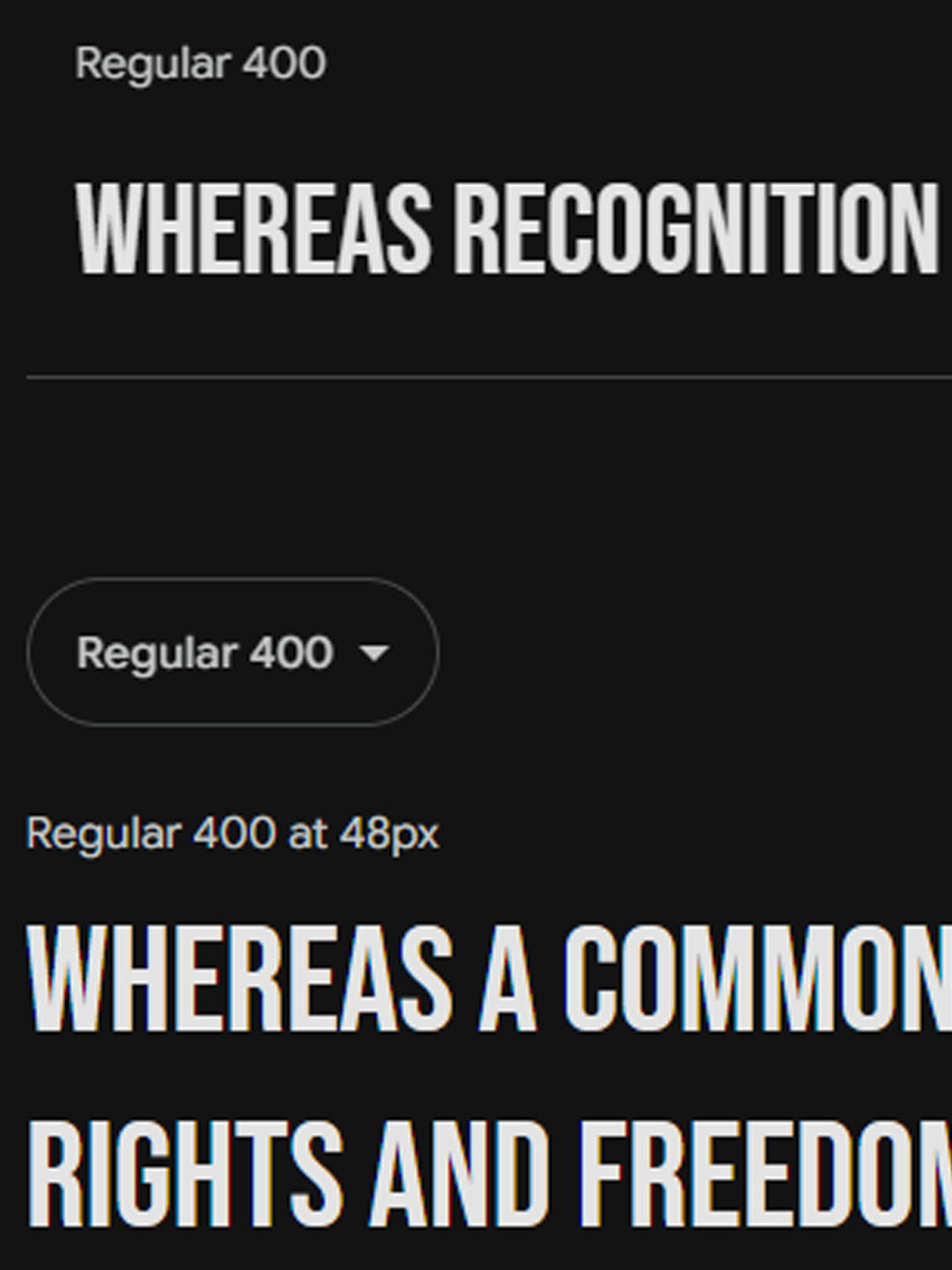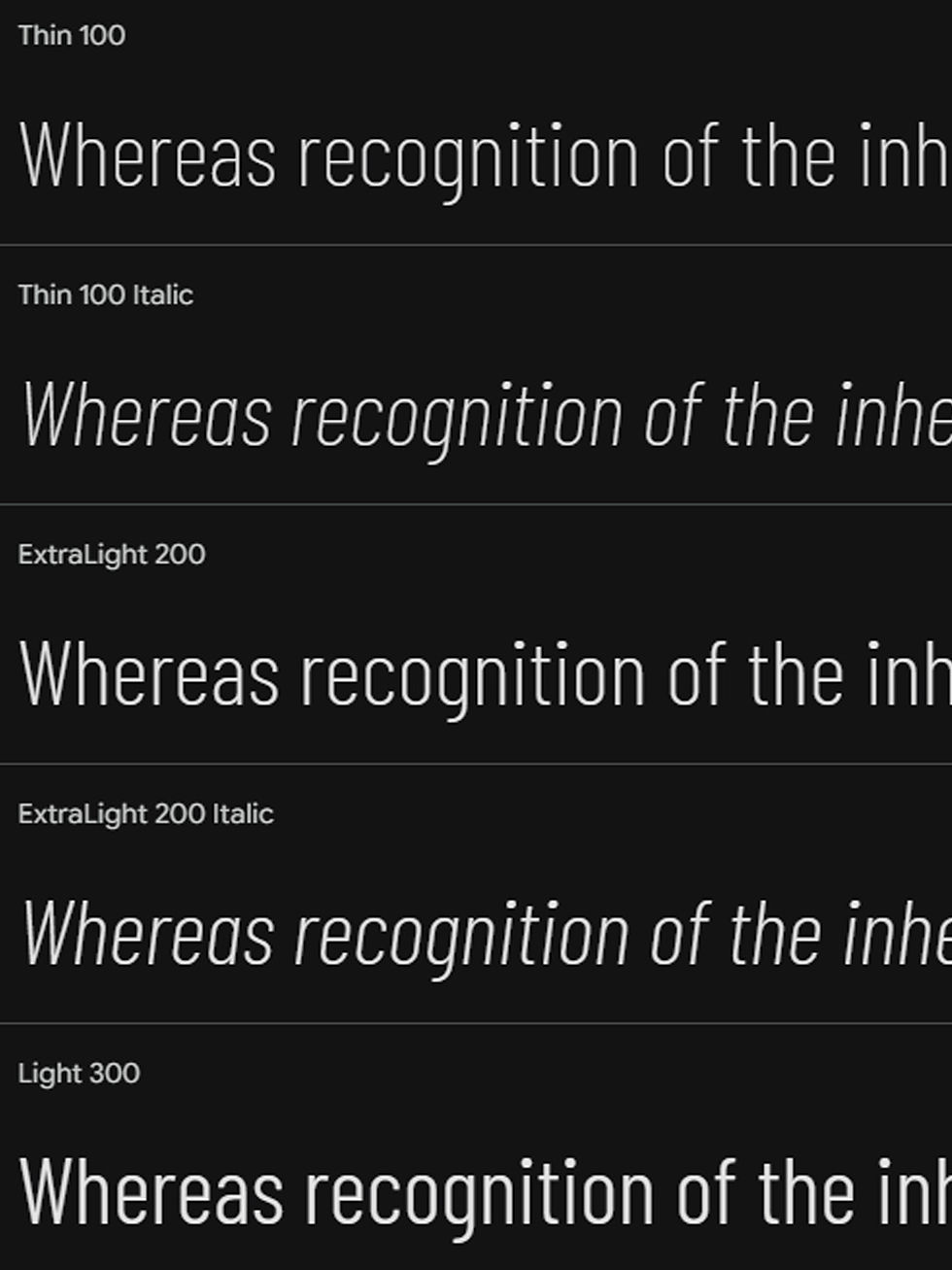
This web-first set combines clean grotesks, modern humanists, geometric sans, sharp condensed headlines, and friendly rounded UI faces. Crafted for landing pages, SaaS dashboards, pricing tables, feature callouts, testimonials, and CTAs, each family is optimized for legibility, weight range, and performance. Delivered in OTF/TTF with WOFF/WOFF2 webfonts, consistent kerning, stylistic sets, and multilingual support. Perfect for fast, on-brand rollout across marketing sites and product UI. 🅰️💻
Key Features:
🔤 10 web-optimized font families for headings, UI, and body copy
💡 Styles include grotesk, humanist, geometric, condensed, and rounded UI
🧭 Clean kerning, stylistic alternates, and consistent glyph sets
🌐 Multilingual support (Latin + extended)
🖥️ Ideal for landing pages, pricing, feature blocks, and dashboards